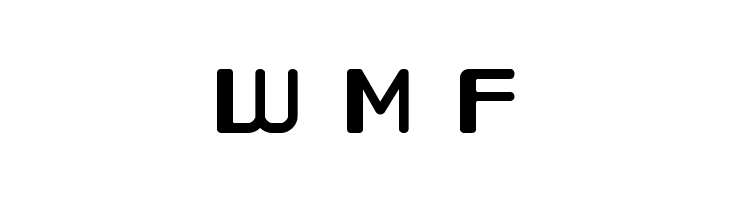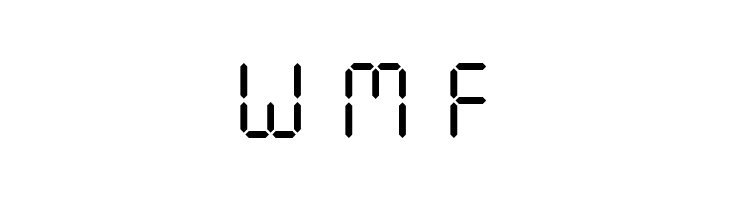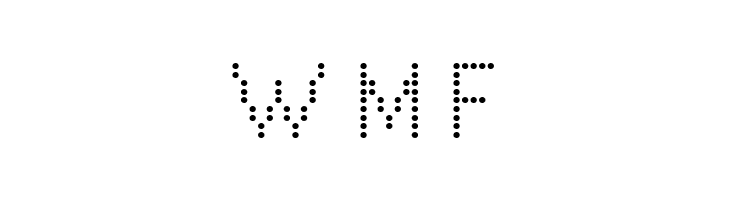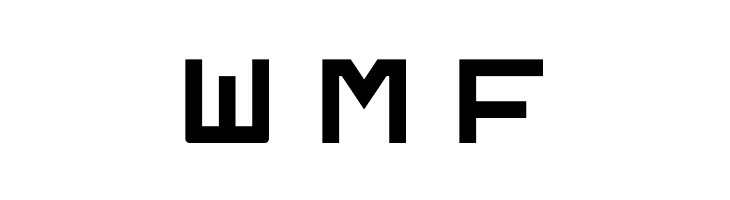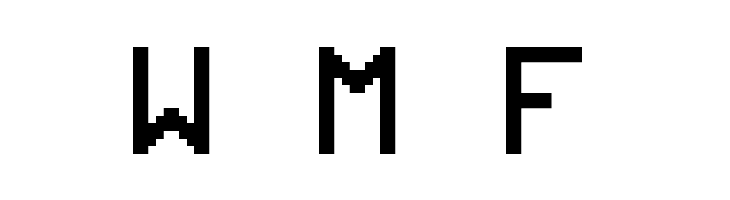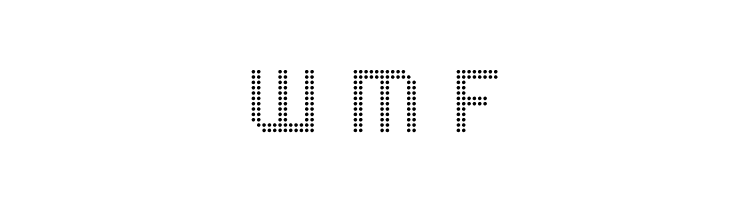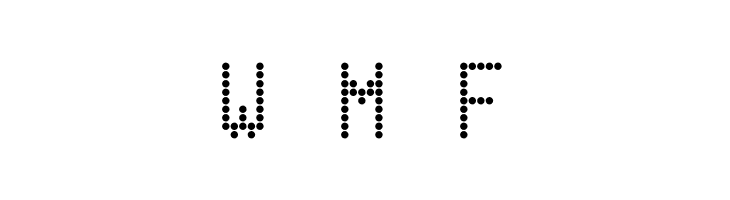
A pixelated, retro-style font inspired by classic 8-bit video games.
A bold, modern font with a geometric and slightly rounded design.
A pixelated, grid-based font with a retro digital style.
A digital-style font resembling seven-segment displays, perfect for tech-themed designs.
A modern, dotted font with a digital and futuristic appearance.
A bold, geometric font with a futuristic and industrial design.
A pixelated, monospaced font with a retro, digital aesthetic.
A modern, geometric font with clean lines and a structured appearance.
A modern, dot-based font with a digital aesthetic.
A dotted, geometric font with a digital, retro aesthetic.